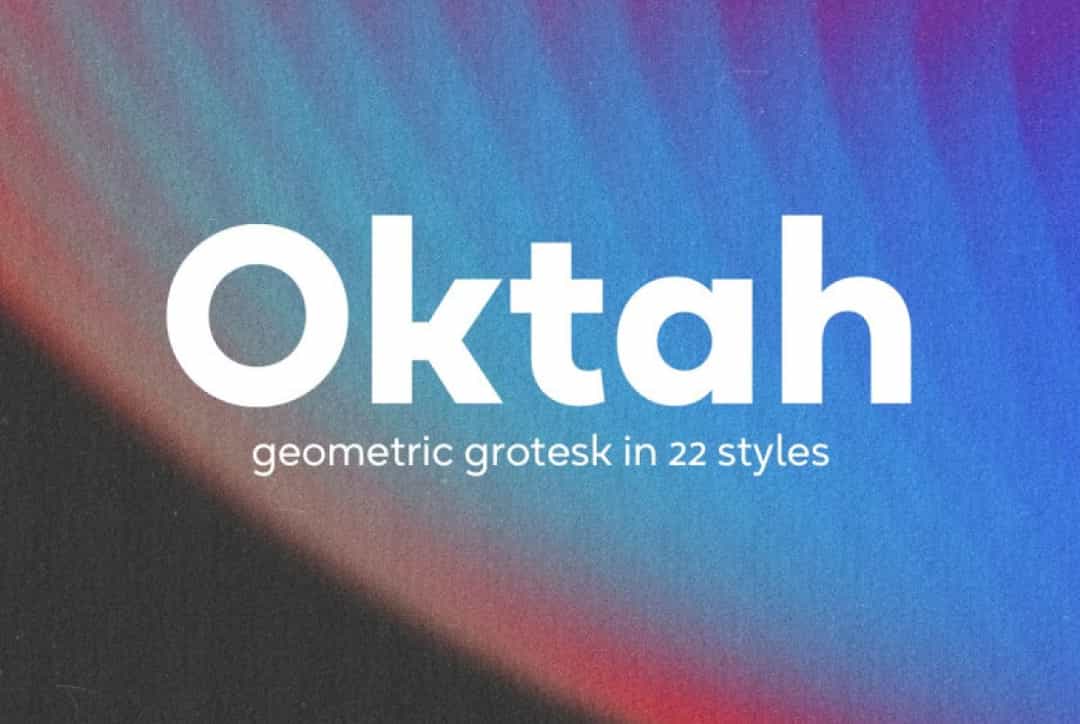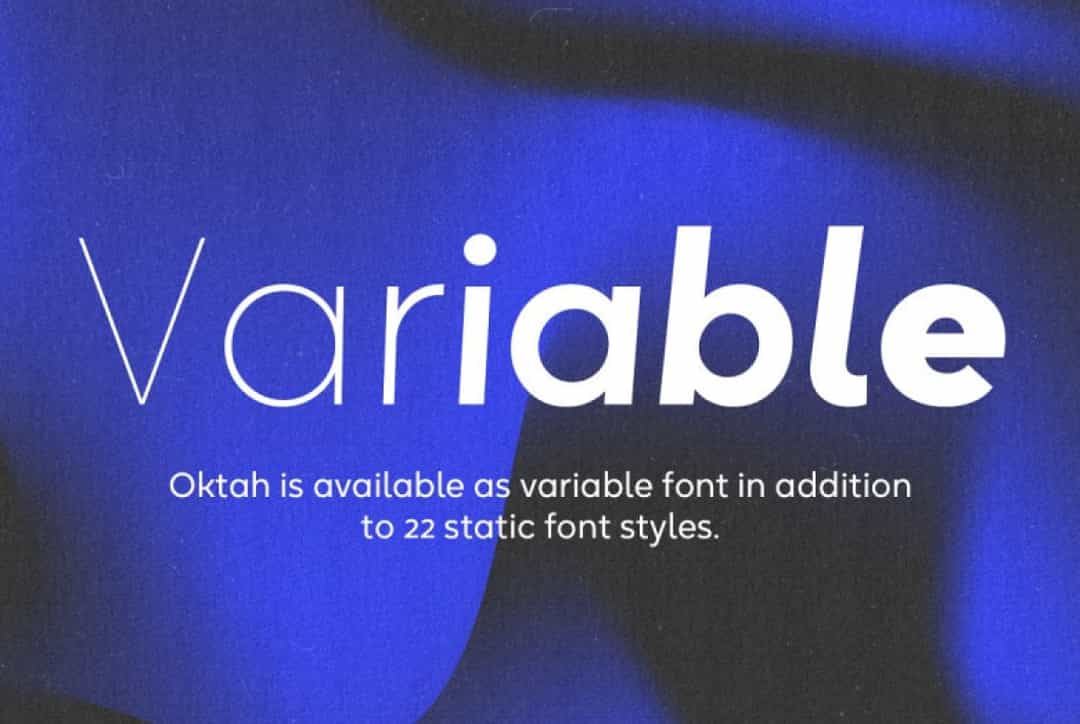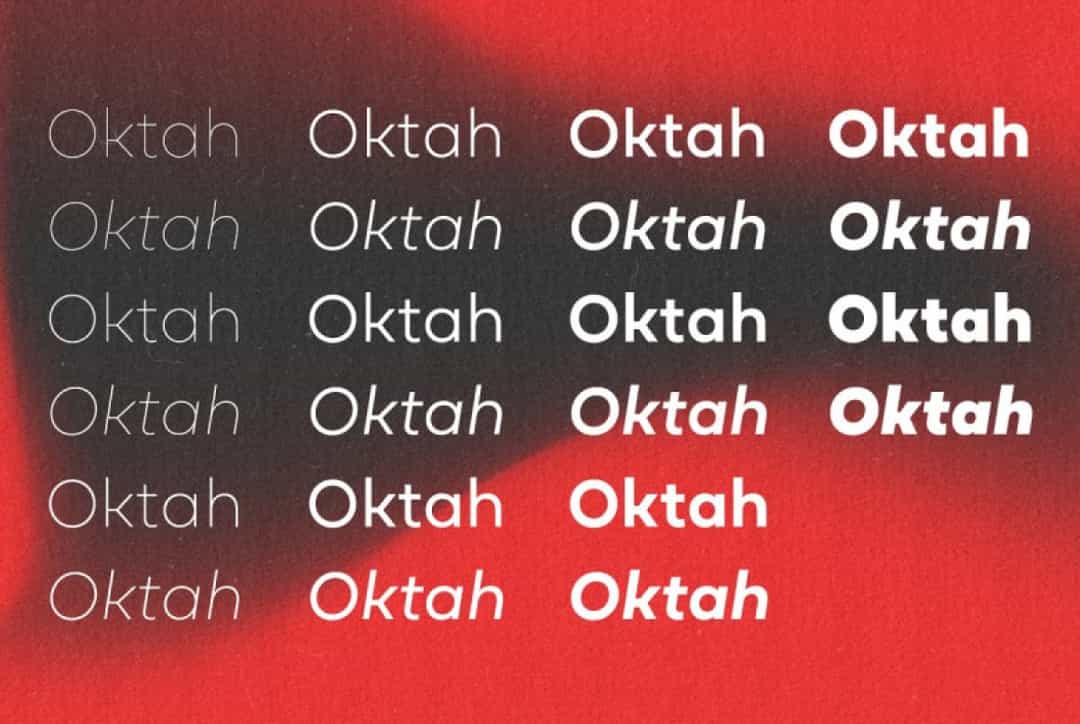
Oktah is a geometric Grotesk sans serif font family with 22 styles, 11 uprights and 11 italics, making it an excellent choice for anyone in search of an easily customizable font with high readability. Featuring beautiful curves, weight variation and appealing aesthetics – everything Oktah was created for in its aim of providing complete font solutions for any application imaginable! In Oktah beautiful geometric curves come together with large apertures and bold strokes in perfect harmony for an overall versatile font family experience that any user would find useful!